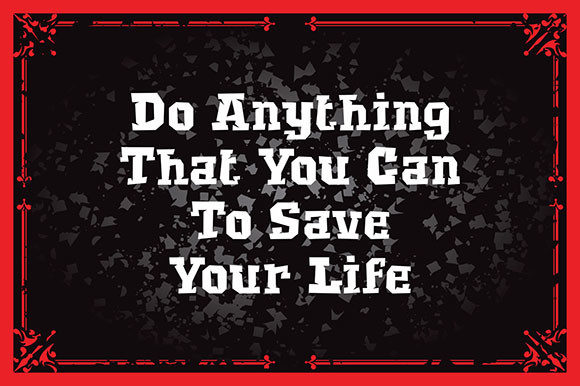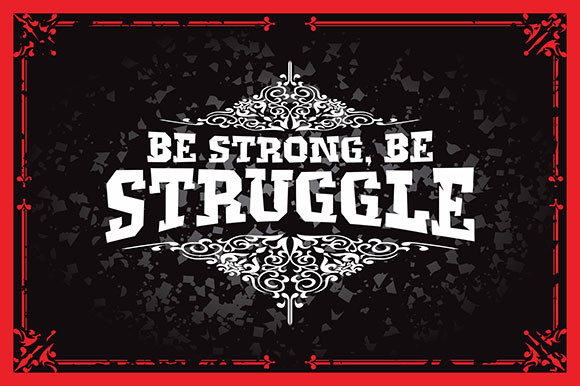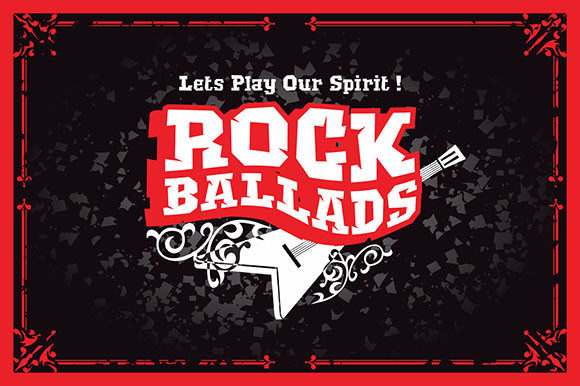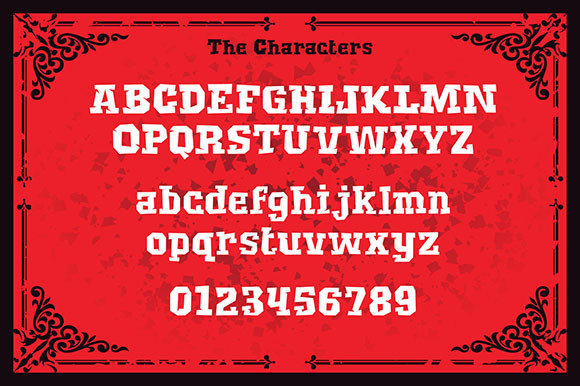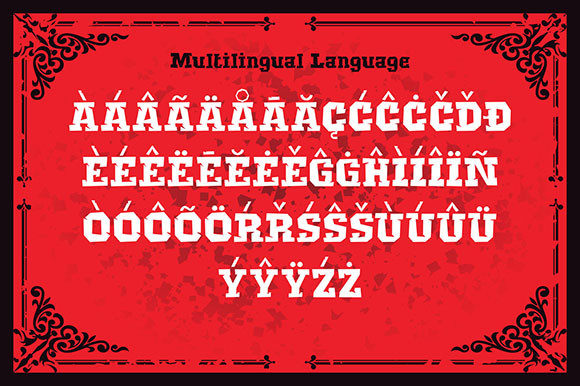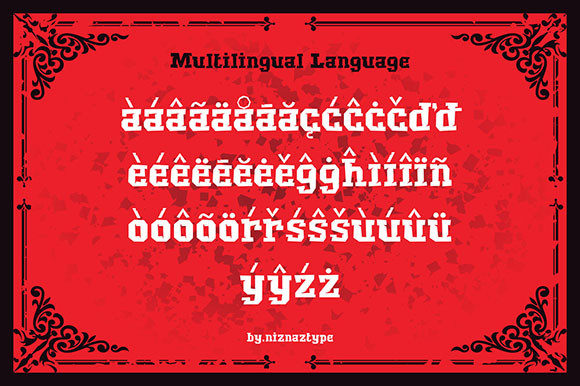
Alemaoz Font: The Ultimate Thick Lettered Display Font for Creative Projects
Are you tired of using the same old fonts for your design projects? Look no further than Alemaoz Font, a thick lettered, cool, and vintage styled display font that’s perfect for adding a touch of personality to your work. In this article, we’ll dive into the features and benefits of Alemaoz Font, and explore how it can elevate your designs to the next level.
What is Alemaoz Font?
Alemaoz Font is a unique and stylish display font that’s designed to make a statement. Its thick letters and vintage style give it a cool and edgy look that’s perfect for a wide range of creative projects. Whether you’re working on a logo, headline, or any other design element, Alemaoz Font is sure to turn heads.
Key Features of Alemaoz Font
- Thick Lettered: Alemaoz Font features thick, bold letters that are perfect for creating eye-catching designs.
- Vintage Style: The font’s vintage style gives it a cool and nostalgic feel that’s perfect for designs that require a touch of retro flair.
- Display Font: Alemaoz Font is designed specifically for display purposes, making it perfect for headlines, titles, and other design elements that need to stand out.
- Versatile: Alemaoz Font can be used for a wide range of creative projects, from logos and branding to posters, magazines, and more.
Use Cases for Alemaoz Font
So, what can you use Alemaoz Font for? The possibilities are endless! Here are some ideas to get you started:
- Logotype: Use Alemaoz Font to create a bold and memorable logo for your brand.
- Headline Font: Alemaoz Font is perfect for headlines and titles that need to grab attention.
- Corporate Identity: Use Alemaoz Font to create a unique and stylish visual identity for your company.
- Brand Identity: Alemaoz Font can help you create a consistent and recognizable brand image.
- Apparel Industry: Use Alemaoz Font to create eye-catching designs for t-shirts, hoodies, and other apparel.
- Poster: Alemaoz Font is perfect for creating bold and attention-grabbing posters for events, promotions, and more.
- Music, Movie, Game: Use Alemaoz Font to create stylish and memorable titles for music tracks, movies, and games.
- Magazine, Book, Comic, Cartoon: Alemaoz Font can add a touch of personality to your magazine, book, comic, or cartoon designs.
- YouTube, Instagram: Use Alemaoz Font to create eye-catching thumbnails and titles for your YouTube and Instagram content.
- Website: Alemaoz Font can be used to create a unique and stylish visual identity for your website.
Why Choose Alemaoz Font?
So, why should you choose Alemaoz Font for your design projects? Here are just a few reasons:
- Unique Style: Alemaoz Font has a unique and stylish design that’s sure to stand out from the crowd.
- Versatility: Alemaoz Font can be used for a wide range of creative projects, making it a great addition to any designer’s toolkit.
- High-Quality: Alemaoz Font is a high-quality font that’s designed to deliver exceptional results.
In conclusion, Alemaoz Font is a thick lettered, cool, and vintage styled display font that’s perfect for adding a touch of personality to your design projects. With its unique style, versatility, and ease of use, Alemaoz Font is a great choice for designers and crafters looking to elevate their designs to the next level. So why wait? Download Alemaoz Font today and start creating stunning designs that demand attention!